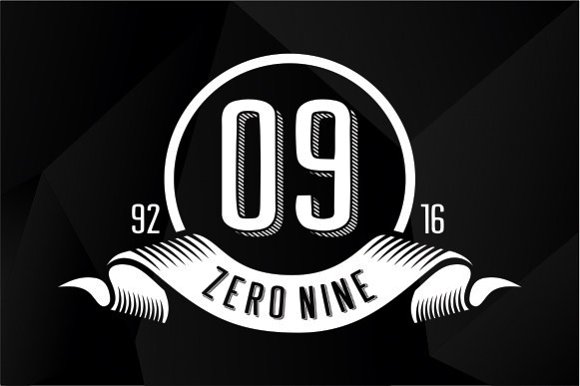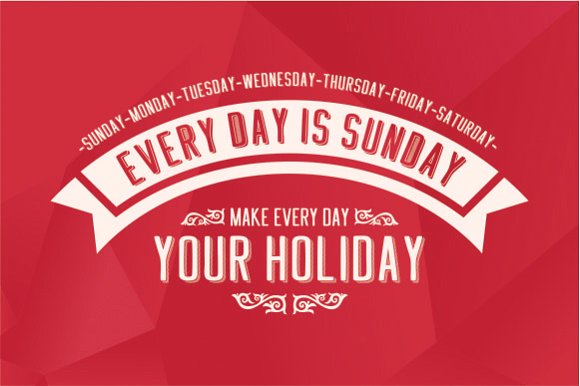
Introducing Greething Sans Font: A Timeless Vintage Sans Serif Beauty
Are you a designer or crafter looking for a unique and stylish font to elevate your creative projects? Look no further than Greething Sans Font, a simply beautiful vintage sans serif font that is sure to capture your heart. With its stunning variations and versatility, Greething Sans is the perfect addition to your font collection.
What is Greething Sans Font?
Greething Sans Font is a vintage sans serif font that exudes a sense of nostalgia and sophistication. Its classic design makes it an excellent choice for a wide range of creative projects, from branding and advertising to crafting and scrapbooking. The font comes in four stunning variations, each with its own unique character:
• Greething Sans Regular
• Greething Sans Shadow Line
• Greething Sans Block Shadow Line
• Greething Sans Line
The Beauty of Greething Sans Font
Greething Sans Font is a masterclass in elegant simplicity. Its clean lines, subtle curves, and perfectly balanced proportions make it a joy to use in any design. The font’s vintage charm is sure to add a touch of warmth and personality to your projects, setting them apart from the crowd.
One of the standout features of Greething Sans Font is its versatility. Whether you’re creating a modern and sleek design or a more traditional and rustic look, this font adapts seamlessly to your needs. Its four variations offer a range of options for adding depth, texture, and visual interest to your designs.
Greething Sans Font Variations
Let’s take a closer look at the four variations of Greething Sans Font:
Greething Sans Regular
The regular version of Greething Sans Font is a beautiful, straightforward sans serif font that is perfect for body text, headings, and titles. Its classic design makes it an excellent choice for a wide range of applications, from print to digital media.
Greething Sans Shadow Line
The Shadow Line variation adds a subtle yet striking element to the font, with a delicate line that adds depth and dimension to your designs. This version is ideal for creating eye-catching headings, titles, and emphasis text.
Greething Sans Block Shadow Line
The Block Shadow Line variation takes the font to the next level, with a bold and eye-catching design that is sure to make a statement. This version features a block-style shadow that adds a sense of drama and flair to your designs.
Greething Sans Line
The Line variation is a stylish and modern take on the font, featuring a sleek and minimalist design that is perfect for contemporary projects. This version is ideal for creating clean and elegant headings, titles, and text elements.
Why Choose Greething Sans Font?
In conclusion, Greething Sans Font is a timeless and beautiful vintage sans serif font that is sure to become a staple in your font collection. With its four stunning variations, versatility, and elegant design, this font is perfect for designers and crafters looking to add a touch of sophistication and personality to their creative projects. Whether you’re working on a branding project, crafting a handmade card, or creating a stunning scrapbook page, Greething Sans Font is the perfect choice.